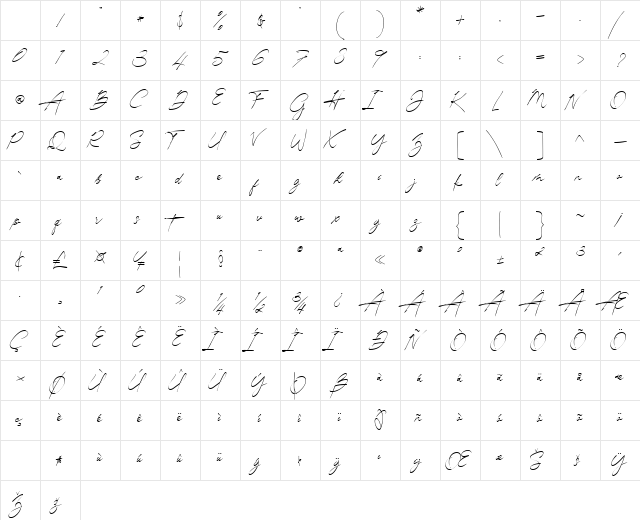
Complete pamsetto Regular glyph index. Displaying only characters natively supported by pamsetto Regular font.
pamsetto is a composed and adaptable typeface that performs quietly and consistently across a wide range of design contexts.